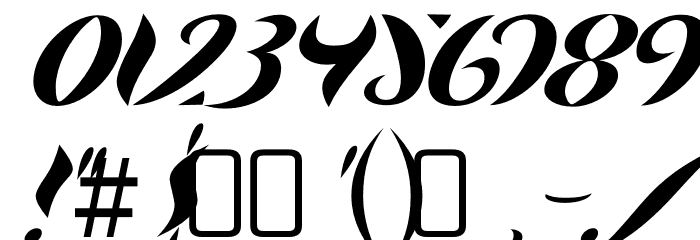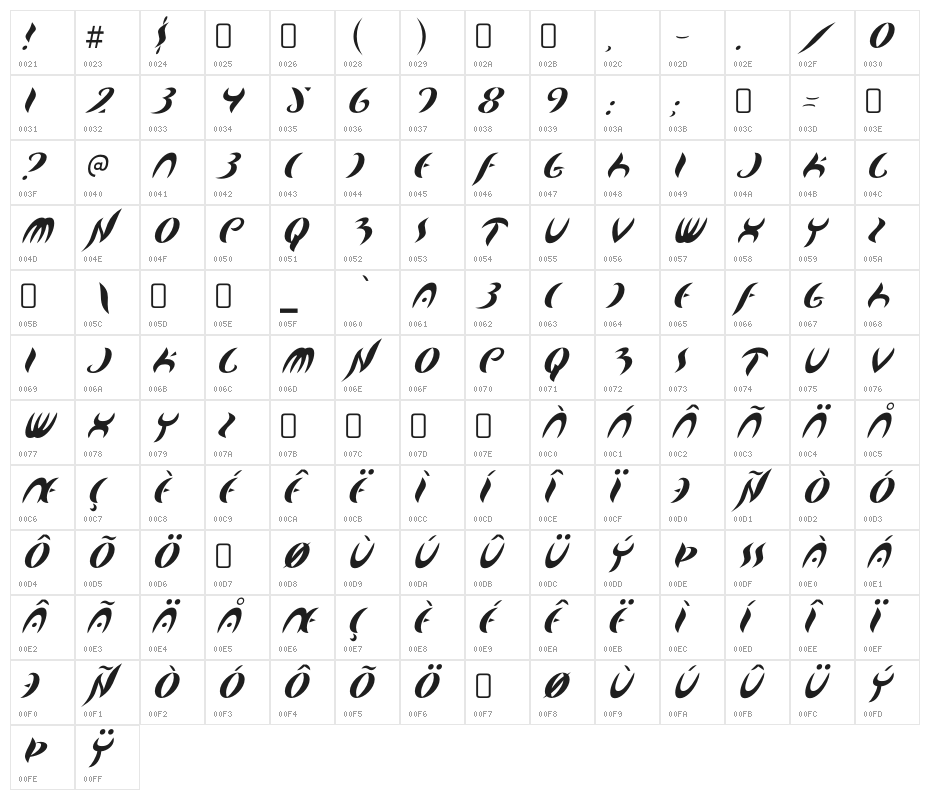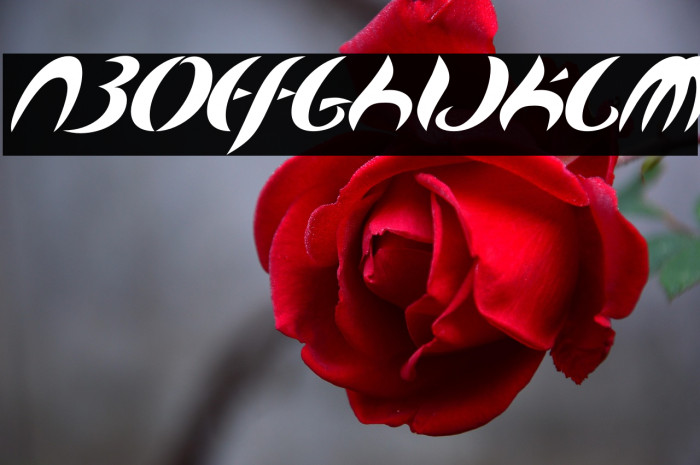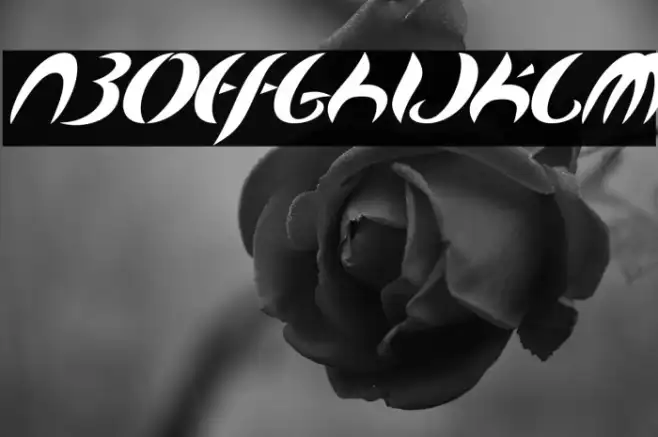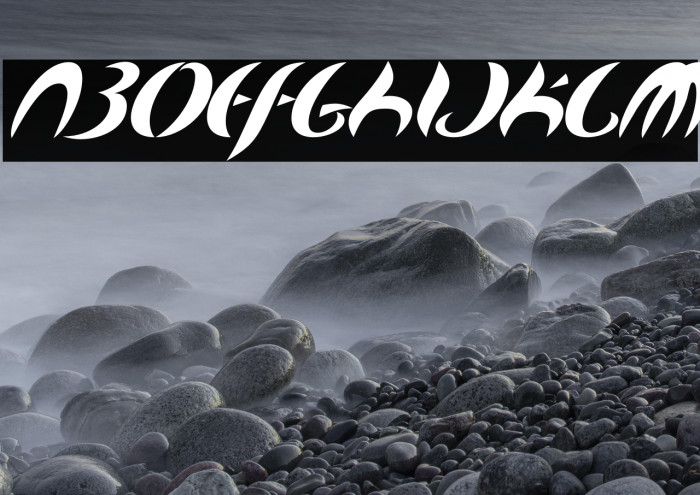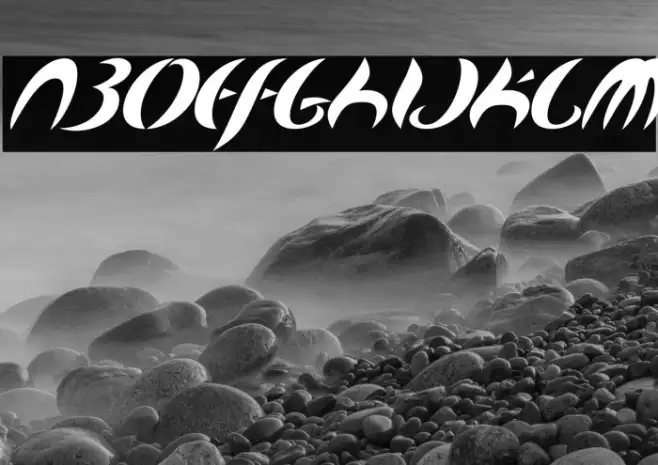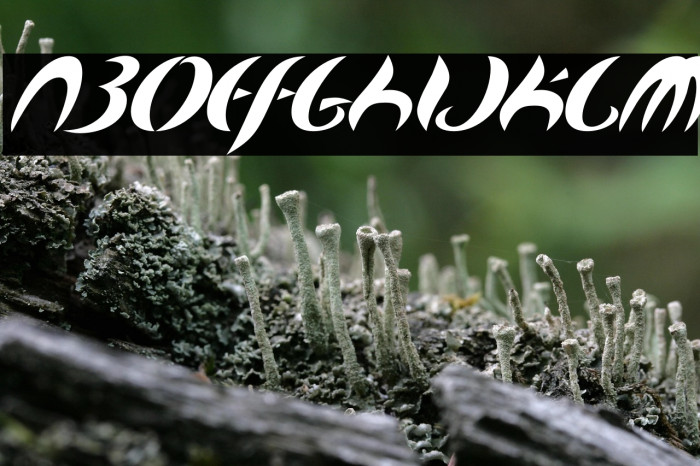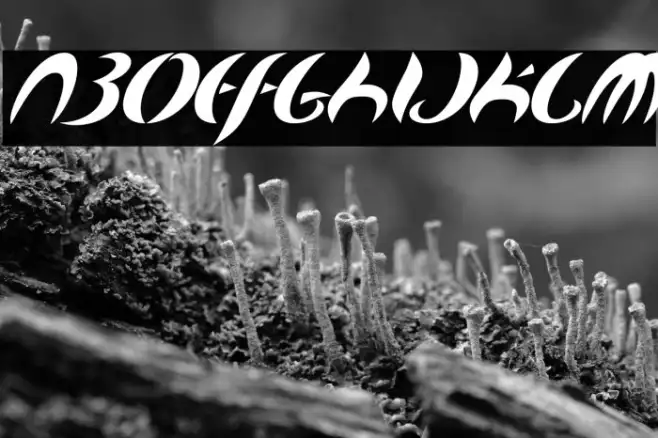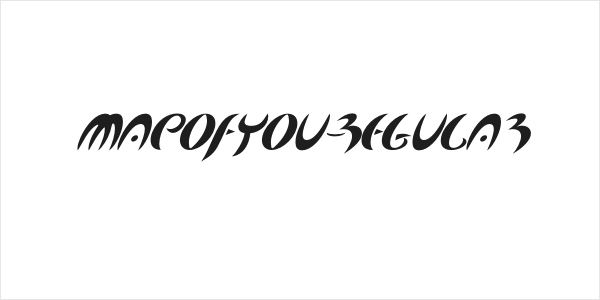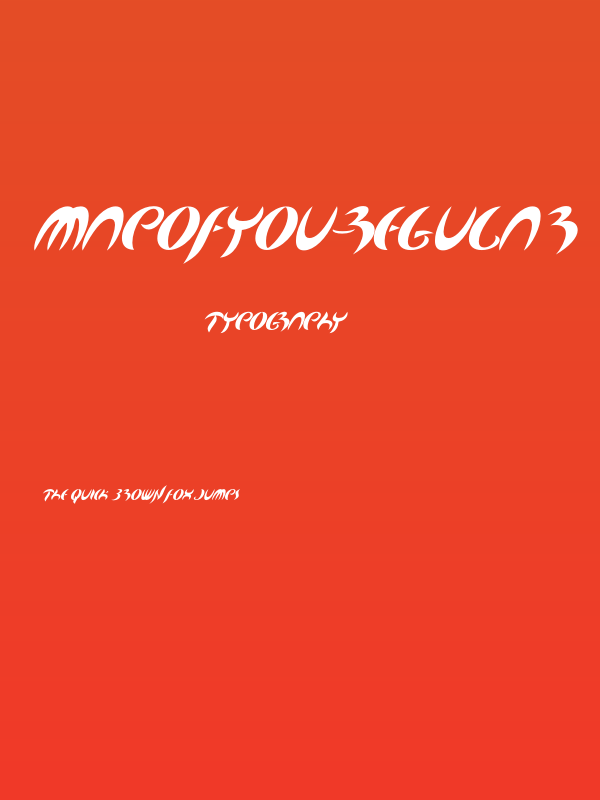
MapofYou-Regular Font
MapofYou-Regular Description
This font features a bold and dynamic script style with a strong, flowing presence. The characters are designed with sharp, angular strokes and a high contrast between thick and thin lines, giving it an energetic and modern look. The uppercase and lowercase letters maintain a consistent style, with a slight slant that adds to the sense of movement. The numbers and special characters are equally expressive, ensuring a cohesive appearance across all text elements. This font's unique design makes it stand out, ideal for projects that require a touch of flair and creativity.
| Proposed Projects | Ideal for branding, posters, and creative projects that require a bold statement. |